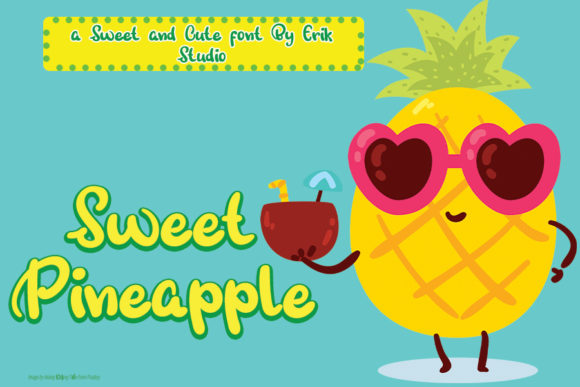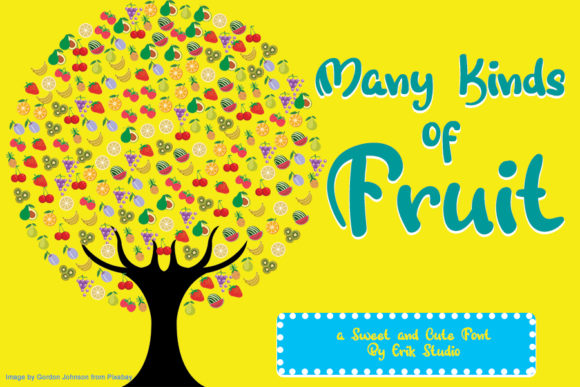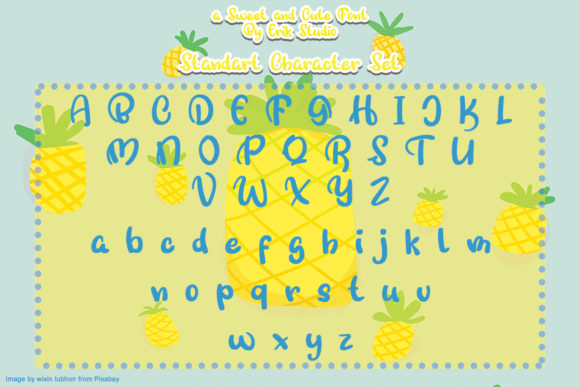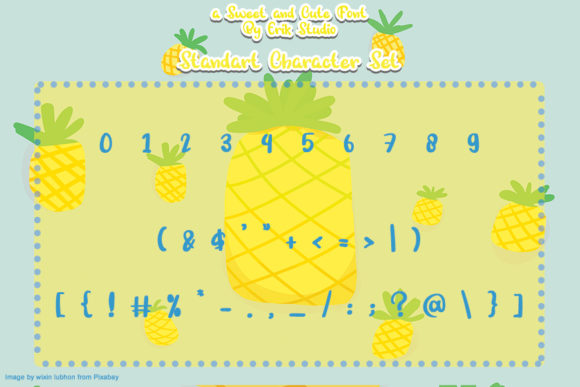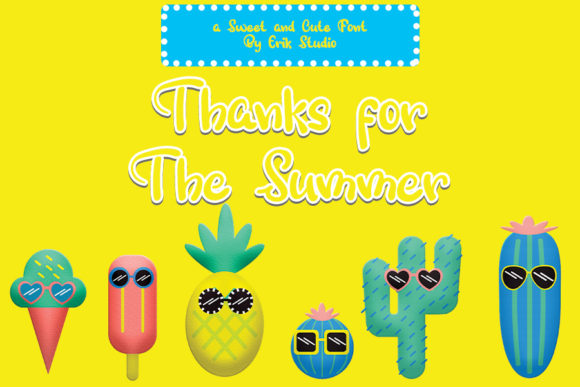
Sweet Pineapple Font
About Sweet Pineapple Font
Sweet Pineapple is a delicate and elegant handwritten font. Its distinct and well rounded letters make this font a masterpiece. Fall in love with its incredibly versatile style and use it to create spectacular designs!